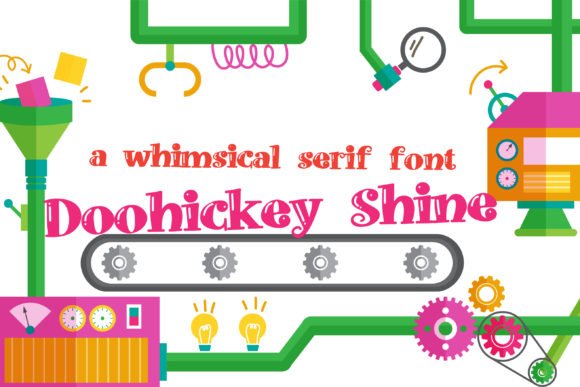
The Perfect Touch of Whimsy: Doohickey Shine Font
You know that moment when you’re working on a design project, and you’re struggling to find the perfect font to bring your vision to life? The words just aren’t coming together, and you’re starting to feel like you’re staring at a blank page? That’s when the magic happens – you stumble upon a font that makes everything click into place.
Enter Doohickey Shine Font, a delightful serif font that adds a touch of whimsical plumpness to any design. With its charming shine mark, this font is perfect for adding a playful twist to your next project. And, as a bonus, its sister font Doohickey is available for those who prefer a solid version. Whether you’re designing a logo, a poster, or a website, Doohickey Shine Font is a valuable addition to your design toolkit.
Doohickey Shine Font Key Features
- Unique Characteristics: Features a unique shine effect, adding a touch of elegance and sophistication to text, making it perfect for premium branding and design projects.
Doohickey Shine Font Review
Overall, I think the Doohickey Shine Font has some great qualities, but it’s not without its flaws. Let’s start with the positives:
- ✨ The font’s unique sparkle effect is a great way to add some visual interest to your designs. It’s perfect for creating eye-catching headings or titles.
- ✨ The font is highly customizable, with a range of color options and sparkle sizes to choose from. This makes it easy to tailor the font to your specific design needs.
- ✨ The font is also surprisingly legible, even with the added sparkle effect. This makes it a great choice for body text as well as headings.
- ⚠️ The font can be a bit too flashy for some designs. If you’re going for a more subtle look, you may want to consider using a different font.
- ⚠️ The font’s sparkle effect can be distracting if used in large blocks of text. It’s best to use it sparingly to avoid overwhelming the reader.
- ⚠️ The font is not compatible with all font sizes or styles. Be sure to test it thoroughly in your design software before committing to use it.
Overall, I think the Doohickey Shine Font is a great choice for designers who want to add a bit of extra flair to their designs. Just be sure to use it thoughtfully and with caution to avoid overwhelming the reader.
Getting the Most Out of Doohickey Shine Font
To get the most out of Doohickey Shine Font, experiment with different font sizes, colors, and combinations to create visually appealing designs.
Use Doohickey Shine Font for headings, titles, and emphasis to draw attention to important elements in your design.
Doohickey Shine Font is ideal for:
1. Creating eye-catching headings and titles.
2. Adding a touch of elegance to your designs.
3. Highlighting important information or calls-to-action.
Are there any specific font sizes or resolutions recommended for using the Doohickey Shine Font?
For optimal legibility and visual appeal, we recommend using the Doohickey Shine Font at font sizes ranging from 12 to 24 points. For digital applications, use a minimum resolution of 72 dpi (dots per inch) and a maximum resolution of 300 dpi. These guidelines will help you achieve the best results with the Doohickey Shine Font.